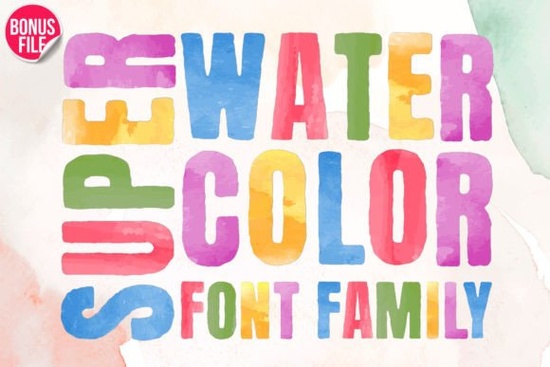
Looking for a font that brings a hand-painted, artistic feel to your designs? Super Watercolor is a colorful watercolor typeface that works beautifully on postcards, tote bags, t-shirts, and a wide range of creative projects. Whether you sell on print-on-demand platforms or design for fun, this font adds a fresh, vibrant look without any extra effort. It's also available as part of a curated colorful fonts collection, which makes it easy to explore similar styles for your next project.
What Does a Watercolor Font Look Like?
A watercolor font mimics the texture and flow of real watercolor paint. The letters have soft edges, blended color tones, and an organic, hand-painted quality. Super Watercolor Font takes this style and makes it bold and eye-catching with bright, saturated hues that stand out on both light and dark backgrounds.
Unlike standard script or serif fonts, watercolor fonts carry an emotional warmth. They feel personal, artistic, and inviting which is exactly why they work so well for projects where you want to connect with your audience on a visual level.
Where Can You Use This Watercolor Font?
This font is versatile enough for many types of projects. Here are some popular ways designers and small business owners use it:
- Tote bags and t-shirts watercolor lettering looks great on fabric, especially for summer or nature-themed designs
- Postcards and greeting cards add a handmade feel to invitations, thank-you cards, or seasonal mailers
- Social media graphics use it for Instagram posts, story headers, or Pinterest pins that need personality
- Wall art and prints quote-based prints with watercolor text are consistent sellers on Etsy and similar marketplaces
- Packaging and labels great for small brands selling candles, soaps, or artisan goods
Is Super Watercolor Font Easy to Use?
What Fonts Pair Well With Super Watercolor?
Pairing fonts is about balance. Since Super Watercolor has a bold, textured look, it pairs best with clean, simple typefaces. Think of it as the "statement" font in your design, and let the supporting font do the quiet work.
Good pairing options include:
- A clean sans-serif for body text or product descriptions
- A thin monoline script for secondary headlines
- A playful rounded font if the design is aimed at kids or families
Is This a Good Font for Print-on-Demand Sellers?
Absolutely. Watercolor designs continue to perform well in the print-on-demand space, especially on products like apparel, mugs, and stationery. The texture of a watercolor font gives designs a handmade quality that buyers look for it stands apart from the flat, digital fonts that dominate most listings.
Because Super Watercolor Font is bold and colorful, it works as a standalone design element. You don't need to add complex illustrations or backgrounds. A short phrase or single word in this font can be enough to create a sellable product.
For best results on printed products, keep these tips in mind:
- Use a high-resolution file watercolor textures need crisp detail to print well
- Test on different backgrounds white, cream, and pastel surfaces usually work best
- Keep text short one to five words tends to look best with a display font like this